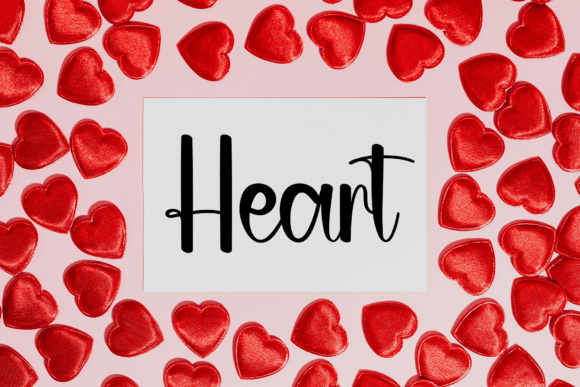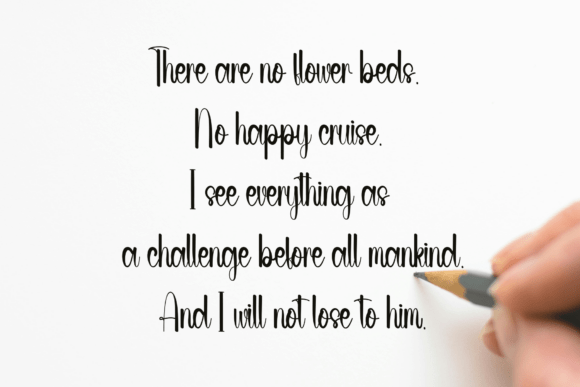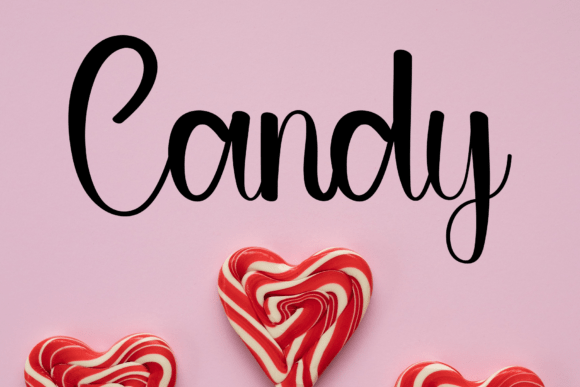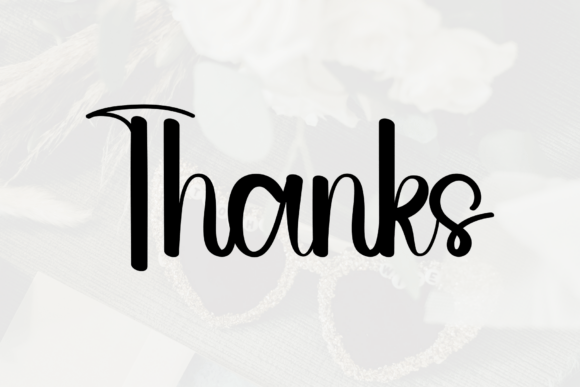
Introduction to Hilliana Font
As a designer, have you ever been stuck on a project, searching for that perfect touch to make it truly stand out? For me, it was a late-night brainstorming session, trying to come up with a creative way to present a new product launch. That’s when I stumbled upon the Hilliana Font, and everything changed. Its beautiful, handwritten characters danced across the screen, immediately capturing my attention and inspiring a whole new direction for the project.
The Hilliana Font is more than just a pretty face – it’s a valuable design resource that can elevate any creative project. With its unique, flowing style and transparent background, it’s perfect for adding a touch of warmth and personality to your designs. And the best part? It’s available for free download, making it an accessible addition to any designer’s toolkit.
Key Features of Hilliana Font
- Unique Hand-Drawn Design: Hilliana Font features a distinctive hand-drawn design, perfect for adding a creative touch to your project.
- Multi-Color Options: This font offers a range of colors and styles, allowing you to customize it to suit your specific design needs.
- Perfect for Creative Projects: Hilliana Font is an excellent choice for designers working on creative projects, such as logos, graphics, and typography-based art.
Honest Review: Hilliana Font
I recently had the opportunity to work with the Hilliana Font, a free download that’s quickly become a staple in my design arsenal. I was impressed by the high quality and versatility of this font, making it a great resource for any creative project.
Here are some of the things that stood out to me:
- ✨ The Hilliana Font has a unique, elegant design that works well for both body text and headlines.
- ✨ The transparent background allows for seamless integration with other design elements.
- ⚠️ The font may not be suitable for projects that require a more modern or edgy look.
- ⚠️ The font’s elegance may be lost in smaller text sizes.
Overall, I’m very impressed with the Hilliana Font. It’s a high-quality design resource that’s perfect for a wide range of creative projects. With its elegant design and transparent background, it’s a great option for designers looking for a sophisticated font without breaking the bank.
The Hilliana Font is commonly used in graphic design, digital art, and web design. It’s a popular choice for creating visually appealing and professional-looking designs, and its transparent background feature makes it ideal for use in logos and branding materials.